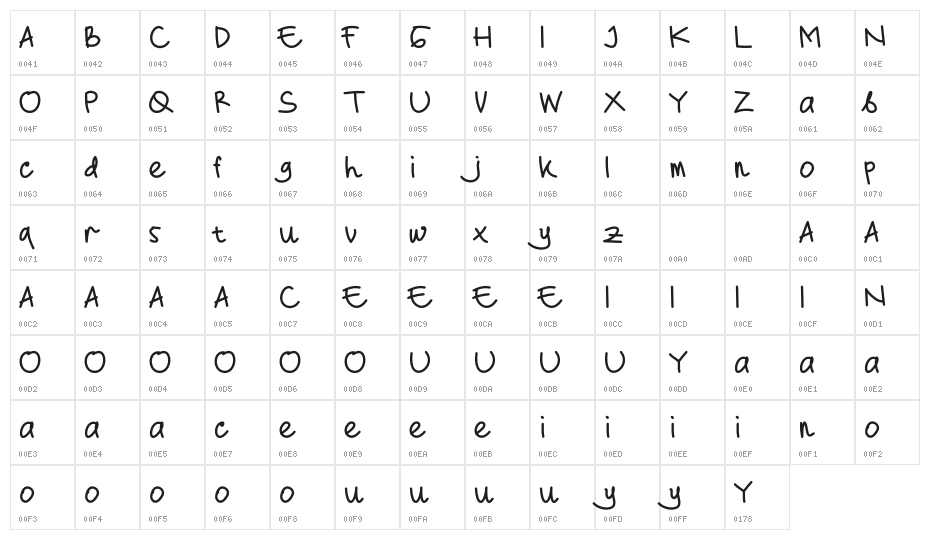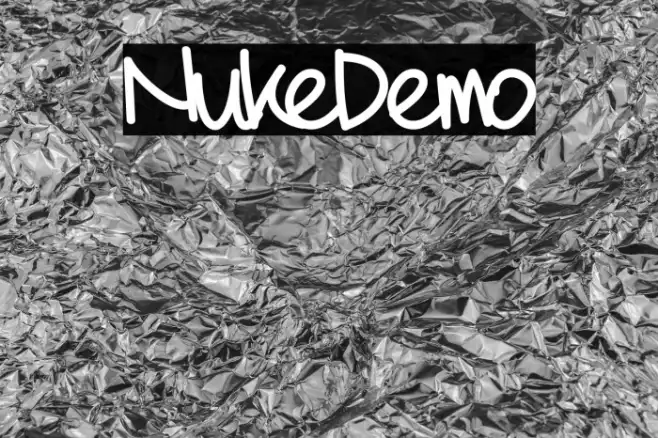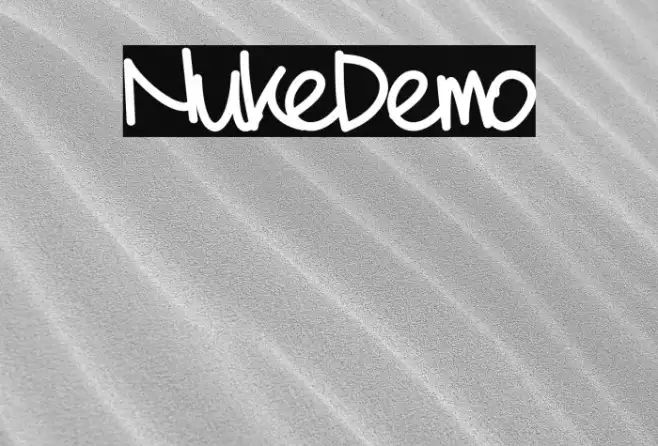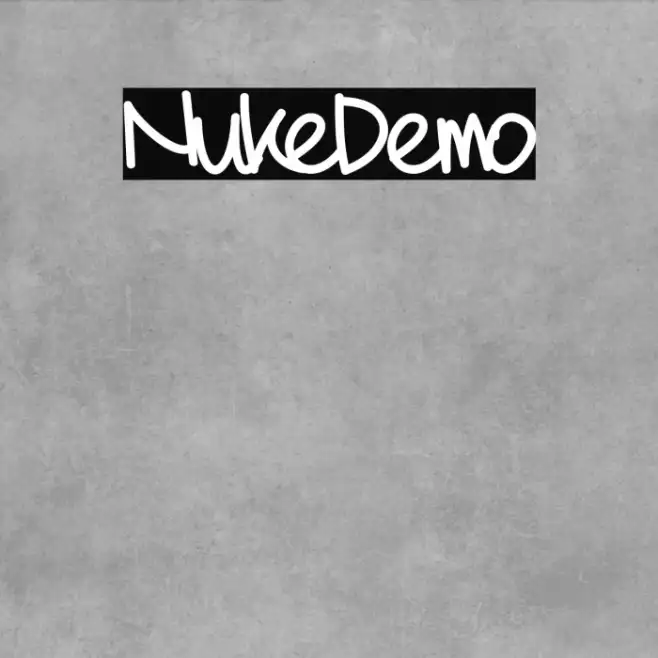
NukeDemo Font
NukeDemo Description
This font features a bold, handwritten style with a playful and casual appearance. The letters are characterized by their irregular strokes and varying thickness, giving them a dynamic and energetic feel. The uppercase and lowercase letters maintain a consistent style, with rounded edges and a slightly slanted orientation, adding to the informal aesthetic. The numerals and special characters follow the same design principles, ensuring a cohesive look across all elements. This font's unique personality makes it stand out, ideal for projects that require a touch of creativity and individuality.
| Proposed Projects | Ideal for creative projects such as posters, invitations, and social media graphics where a personal touch is desired. |